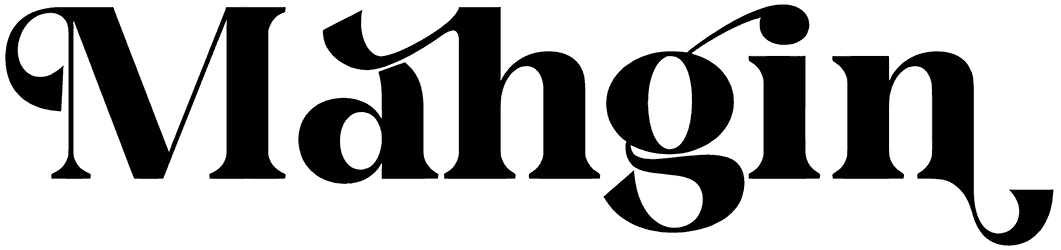
Mahgin Font
Set a timeless and classic face with this serif font on your project to convey a noble vibe to your observers. You can count on this basic font for any design with any topic. Let’s use the Mahgin font to decorate your new drama movie poster or other creative projects and have a confident and popular showcase.